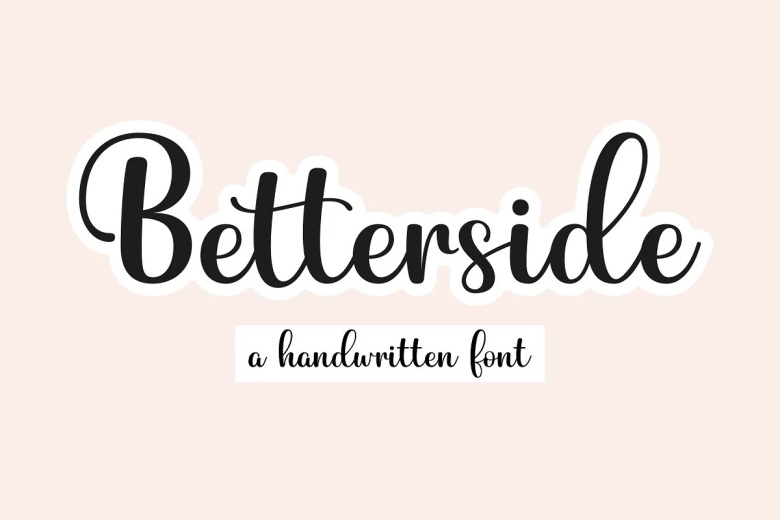
Betterside Font
Betterside this is a cool and cursive script font. This charming font is perfect for inspirational and romantic designs. This magnificent font will take each of your ideas to the next level! It is perfect for greeting cards, branding materials, business cards, quotes, posters, stickers, blogs, logos, weddings and events, signs, product packaging, printed materials, bags and t-shirts, and much more.
Betterside Handwritten Script Font